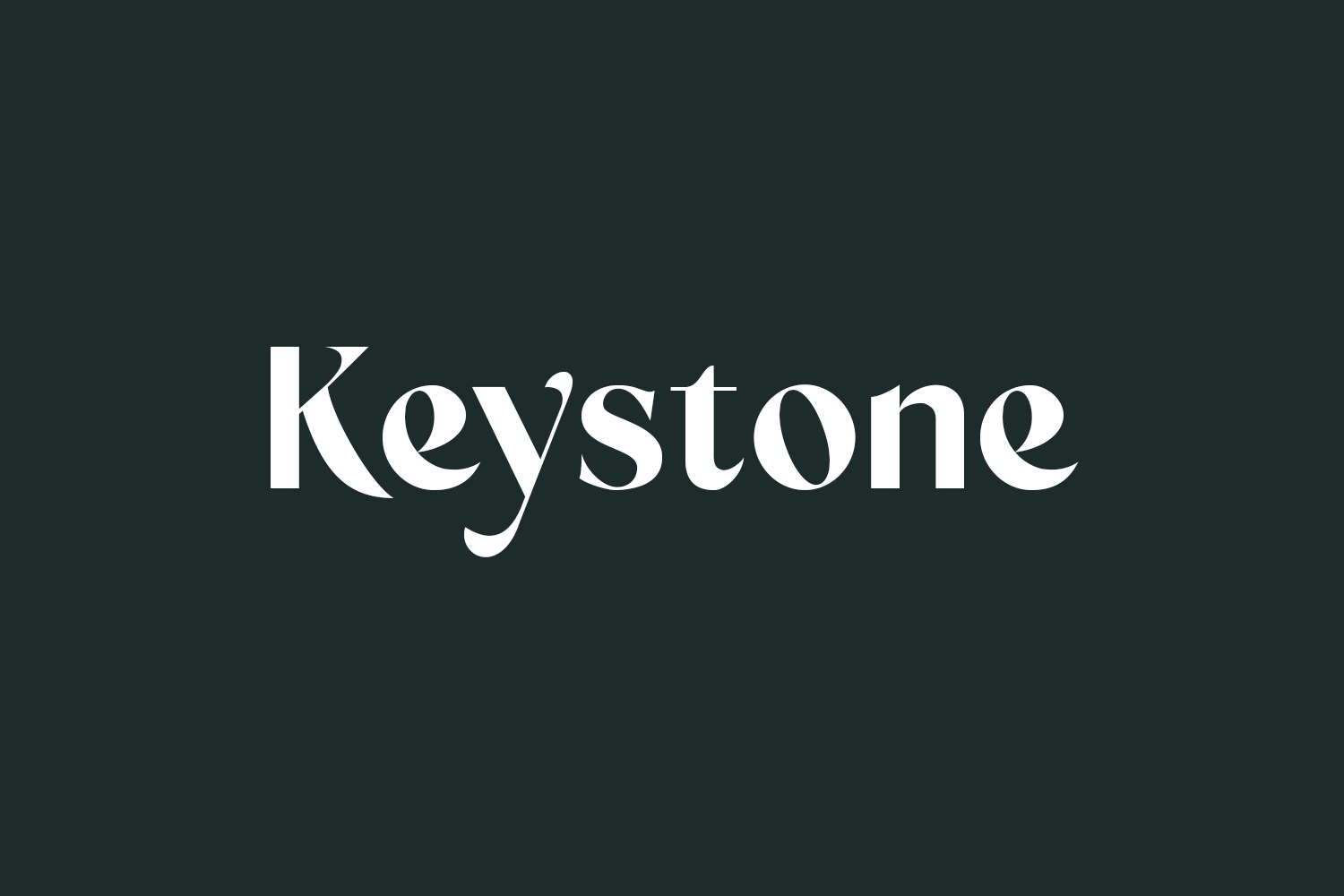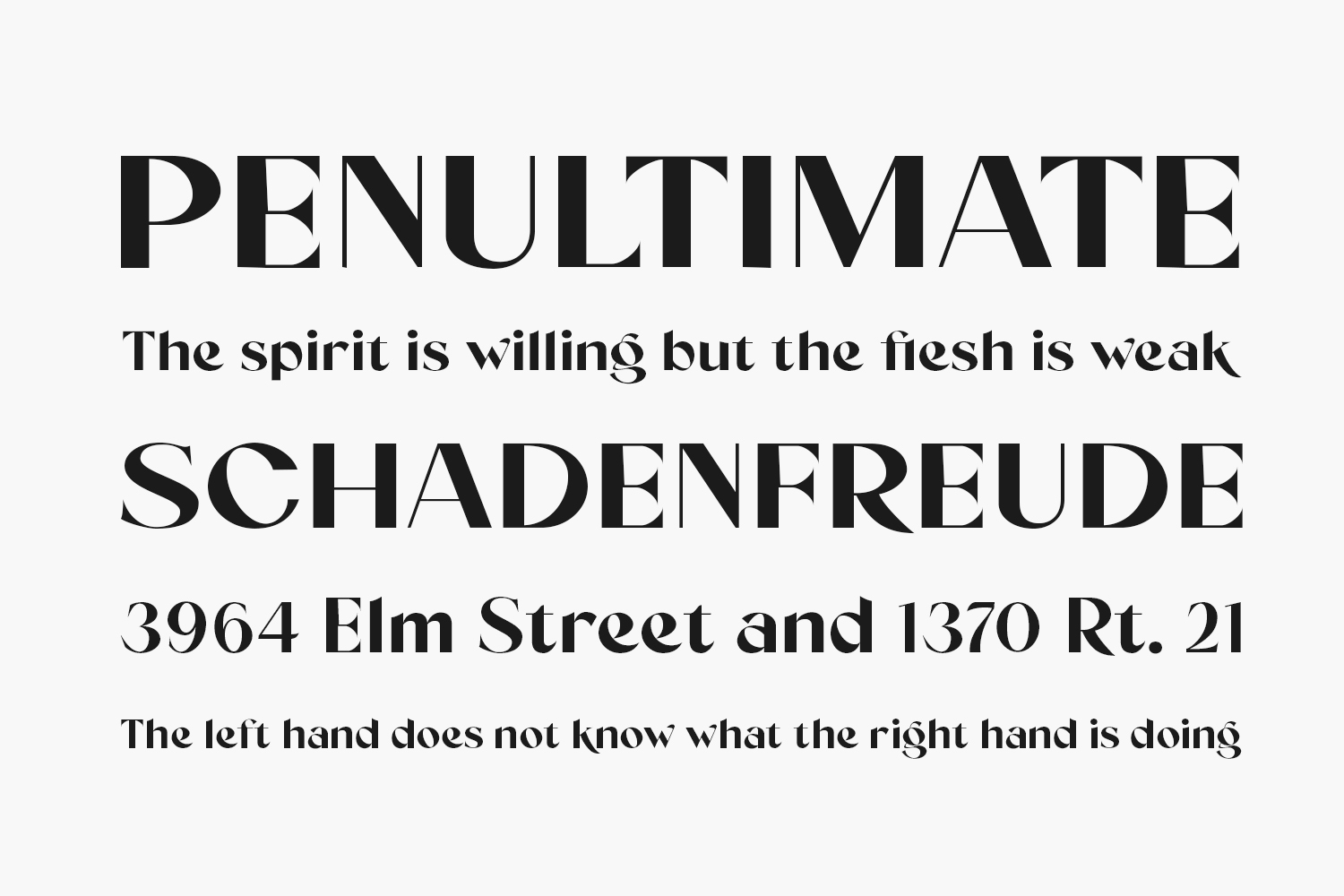
Meet Keystone Free Font Family, a contemporary and refined sans serif font. Elevate your concepts and craft stunning designs with its modern elegance. Download the font for free if you need it for personal use or purchase the full version for commercial use.
Keystone Regular The quick brown fox jumps over the lazy dog
Keystone Italic The quick brown fox jumps over the lazy dog